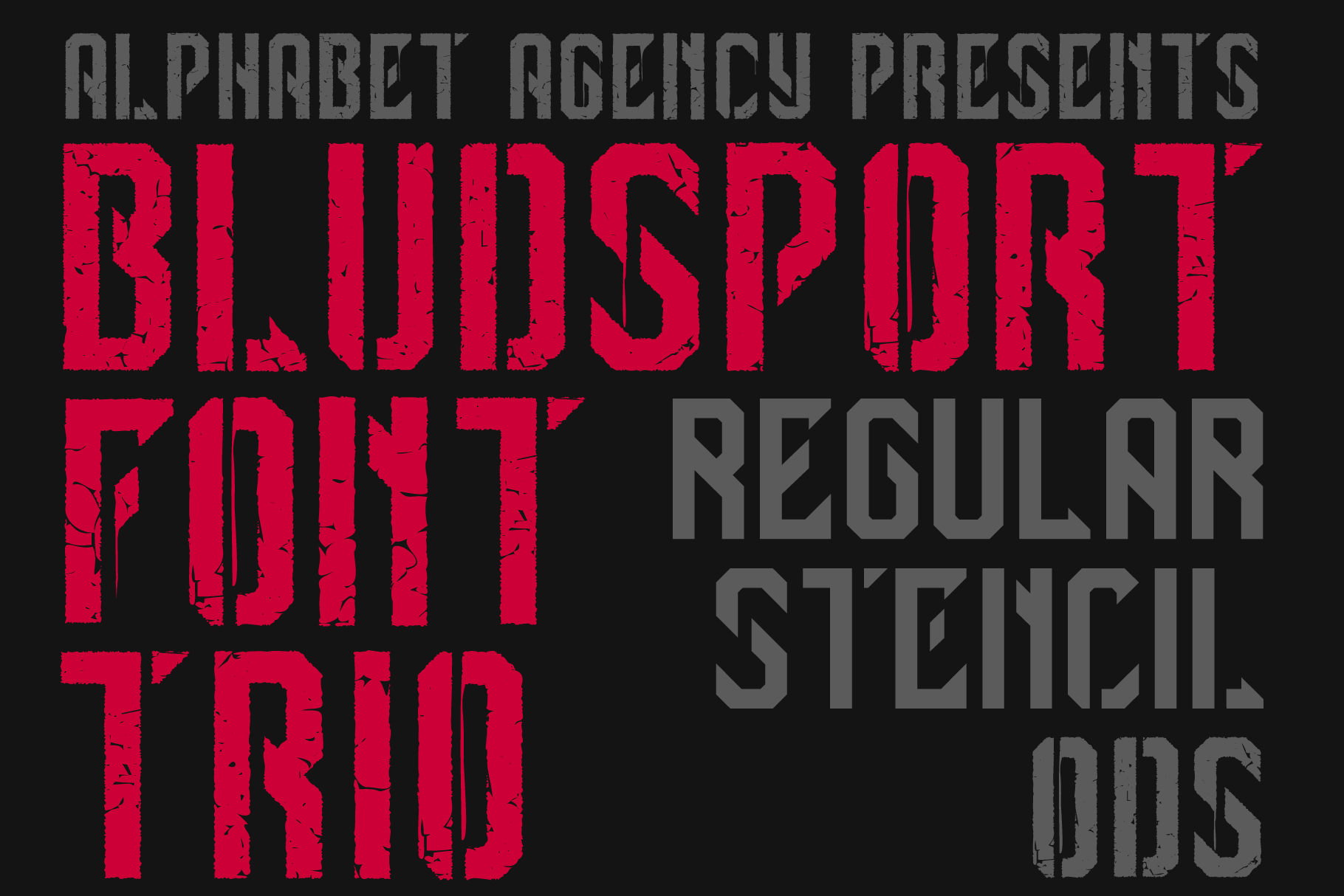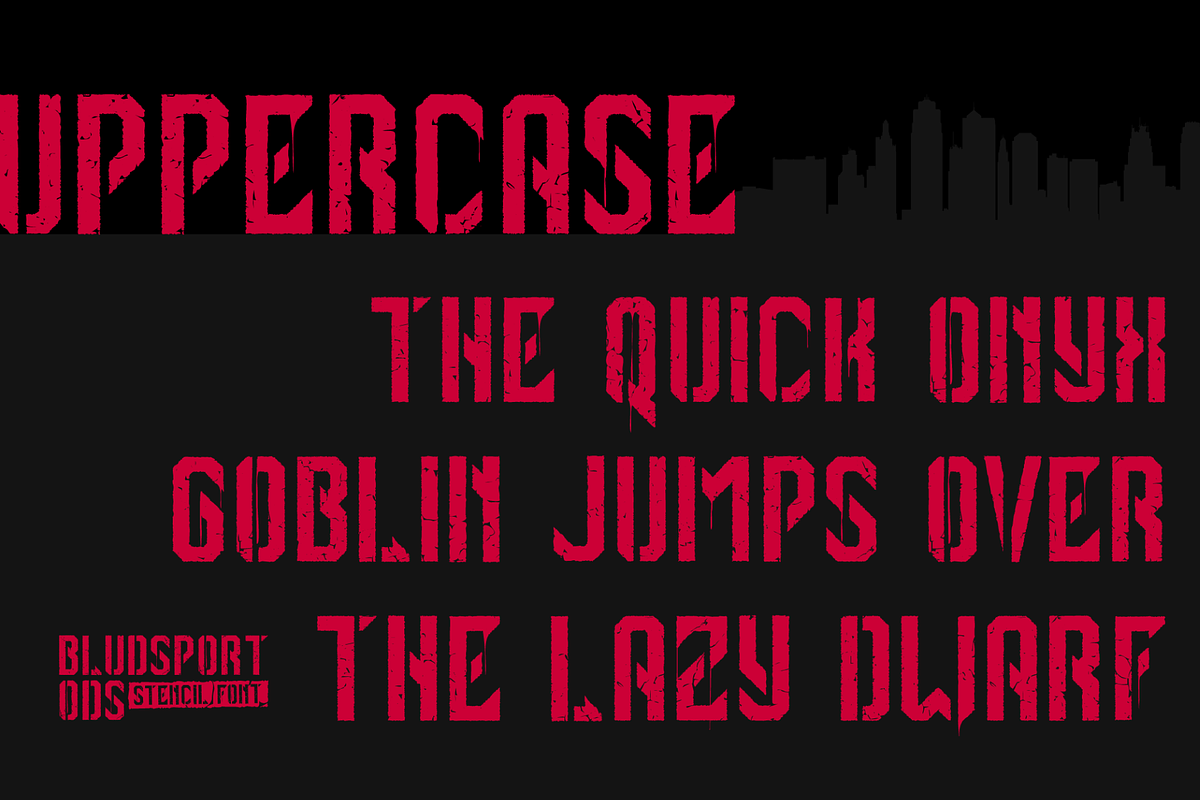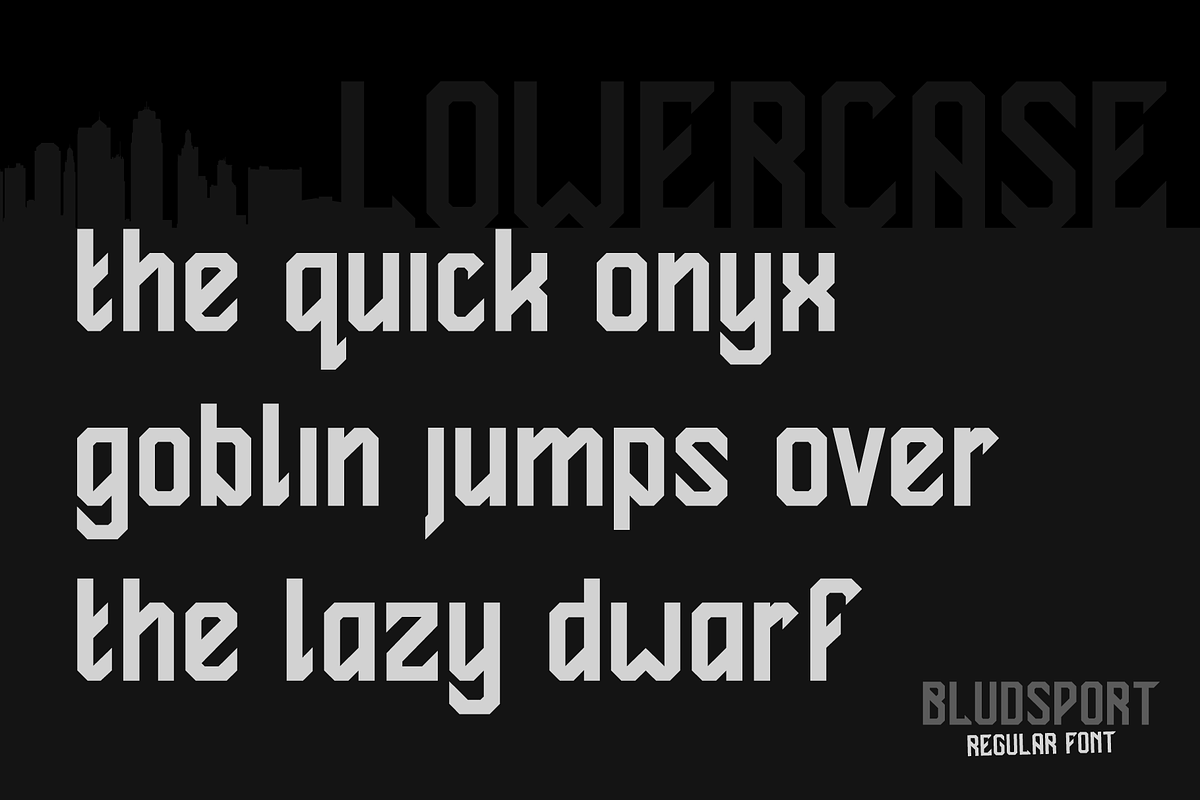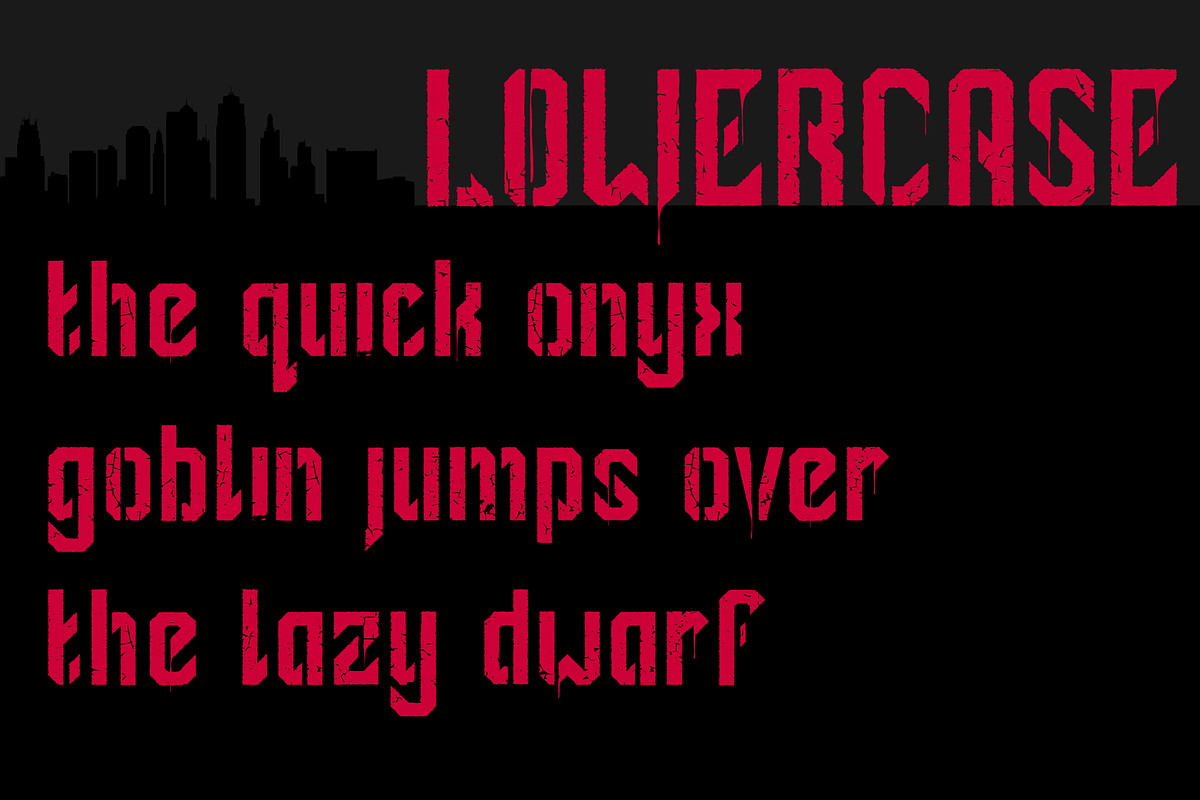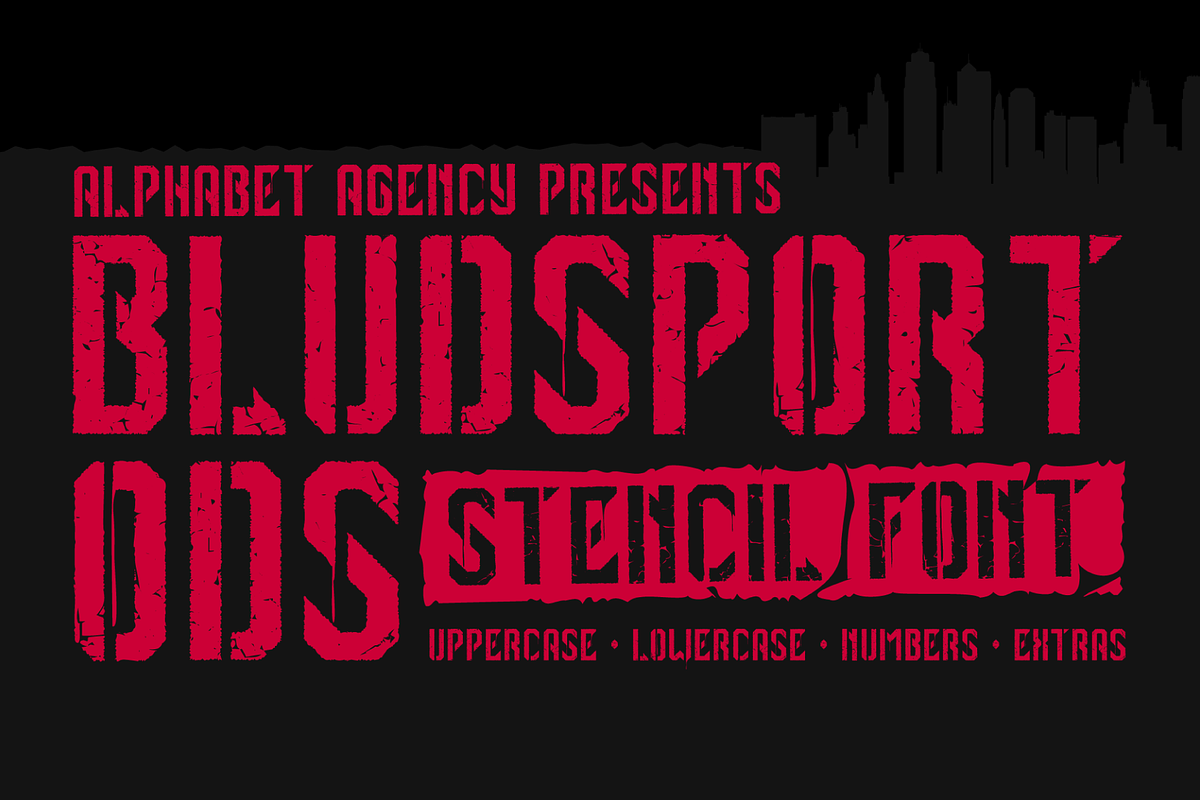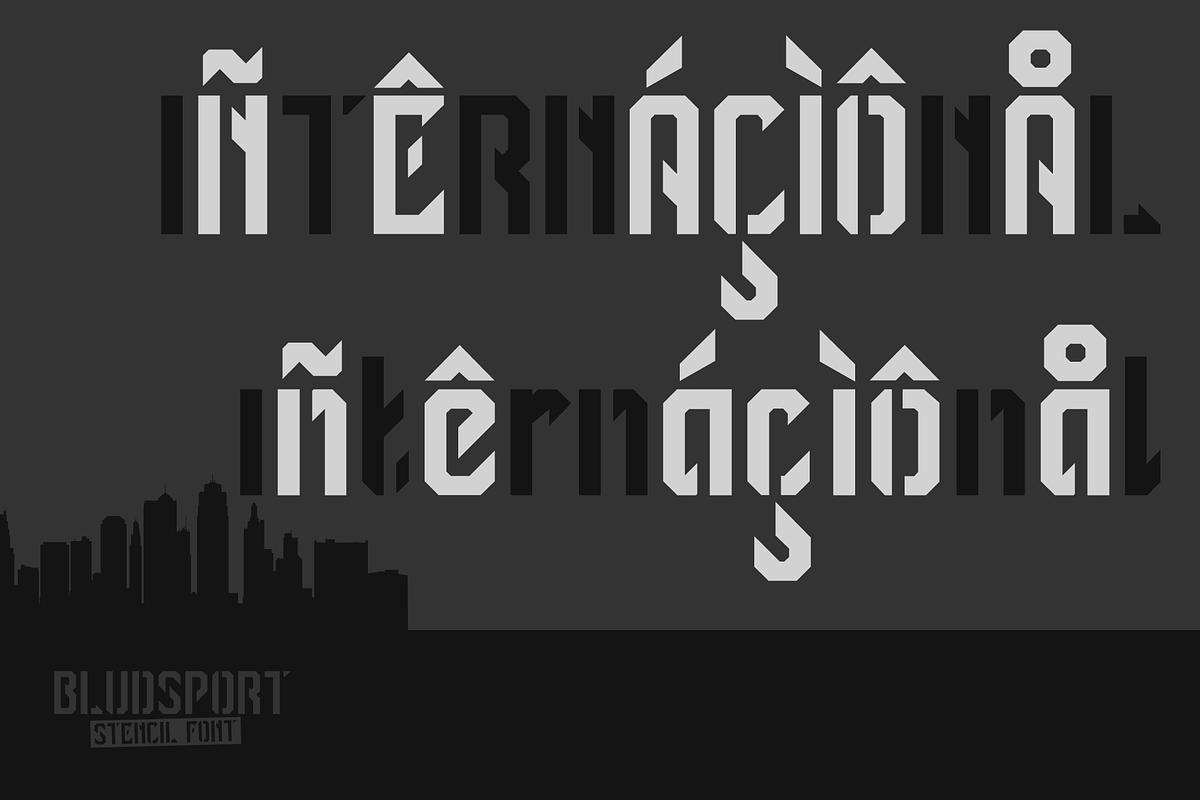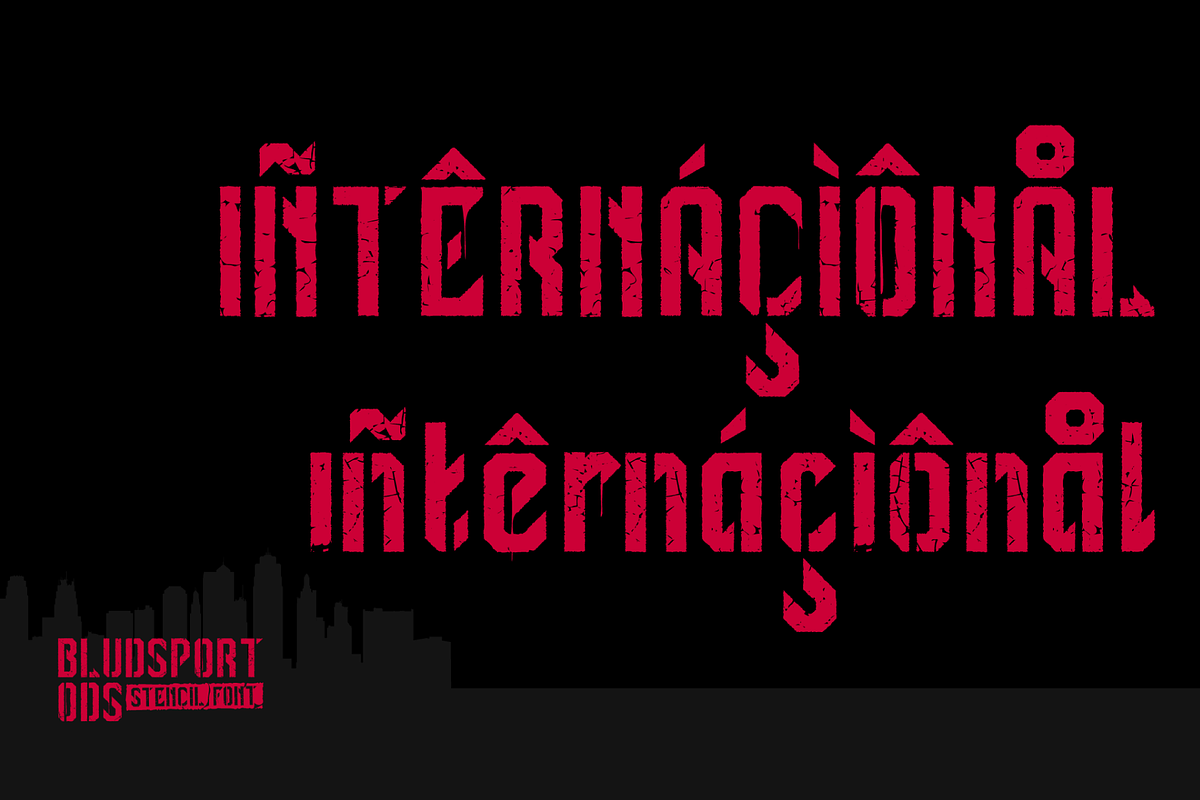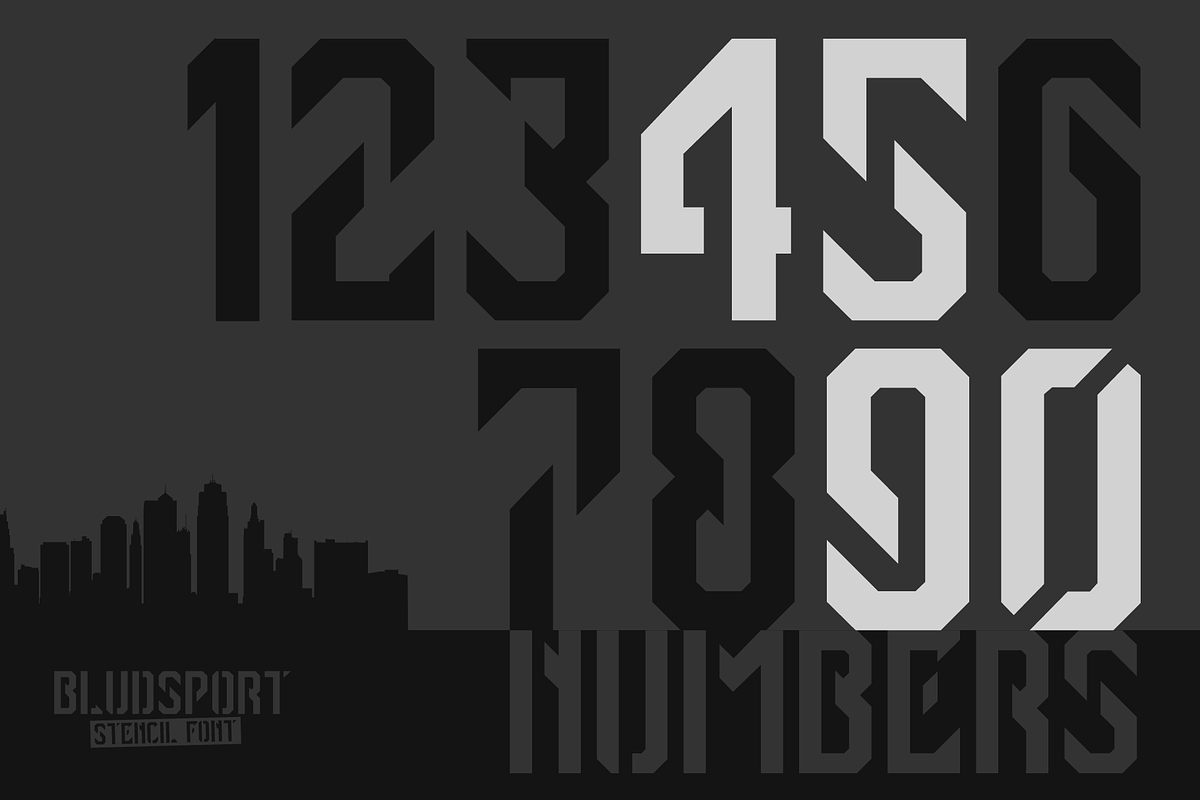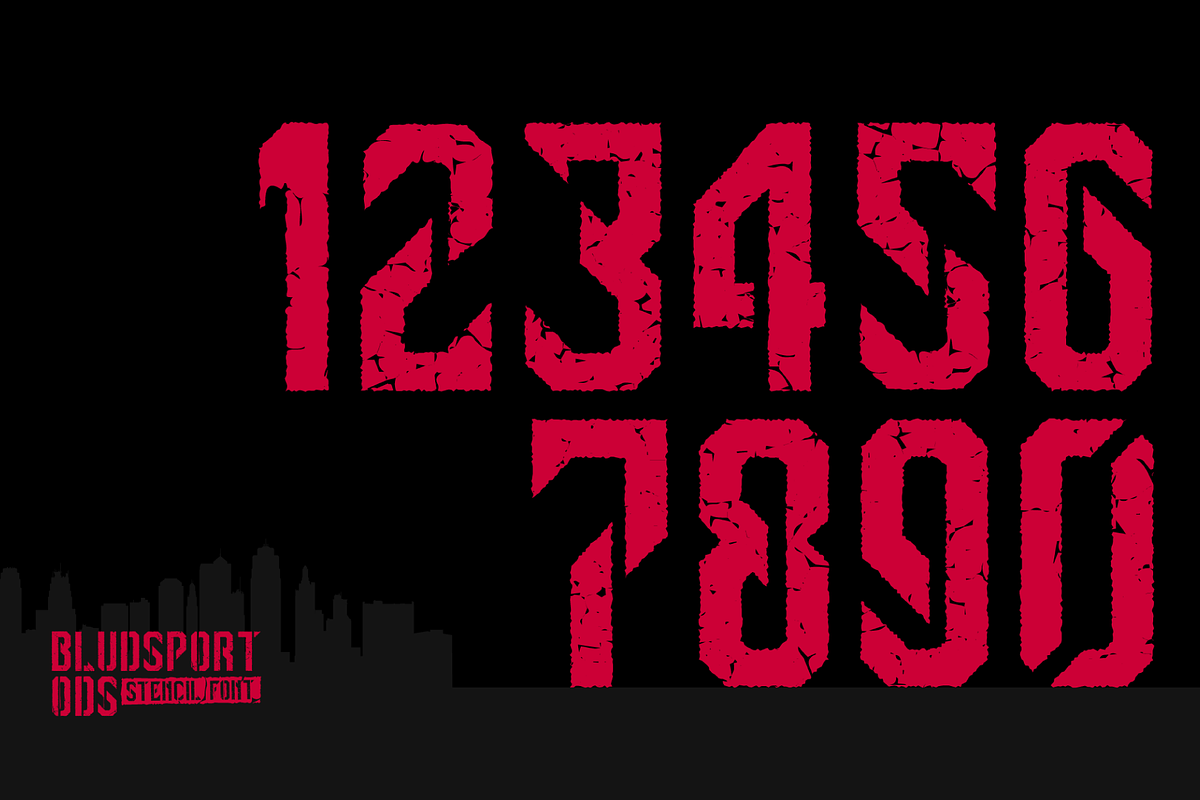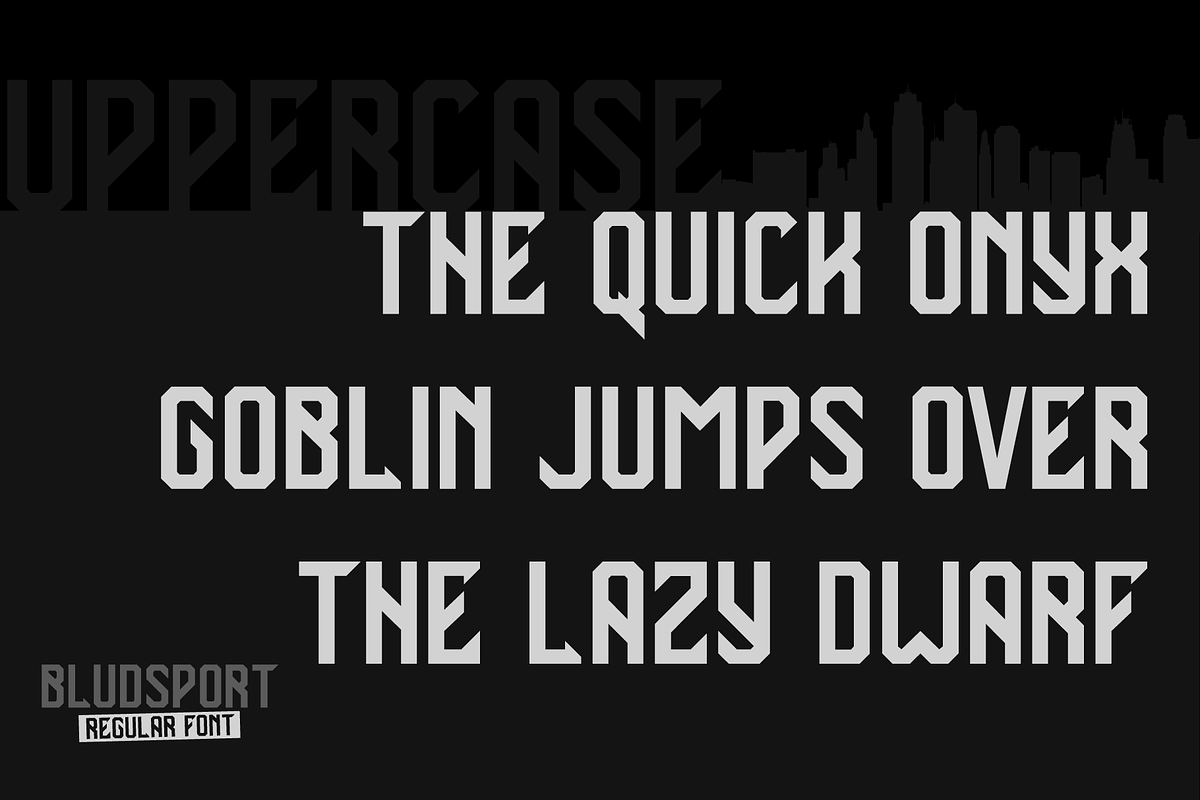
BLUDSPORT FONT TRIO
Alphabet Agency proudly presents Bludsport Font Trio. The font trio includes three fonts; Bludsport Regular, Stencil and ODS.
The fonts are designed for use in a variety of genres including in the film and television industry, gaming industry, outdoors/survivalist industry and combat sport themes.
Each font includes uppercase, lowercase, numbers, punctuation and basic Latin characters.